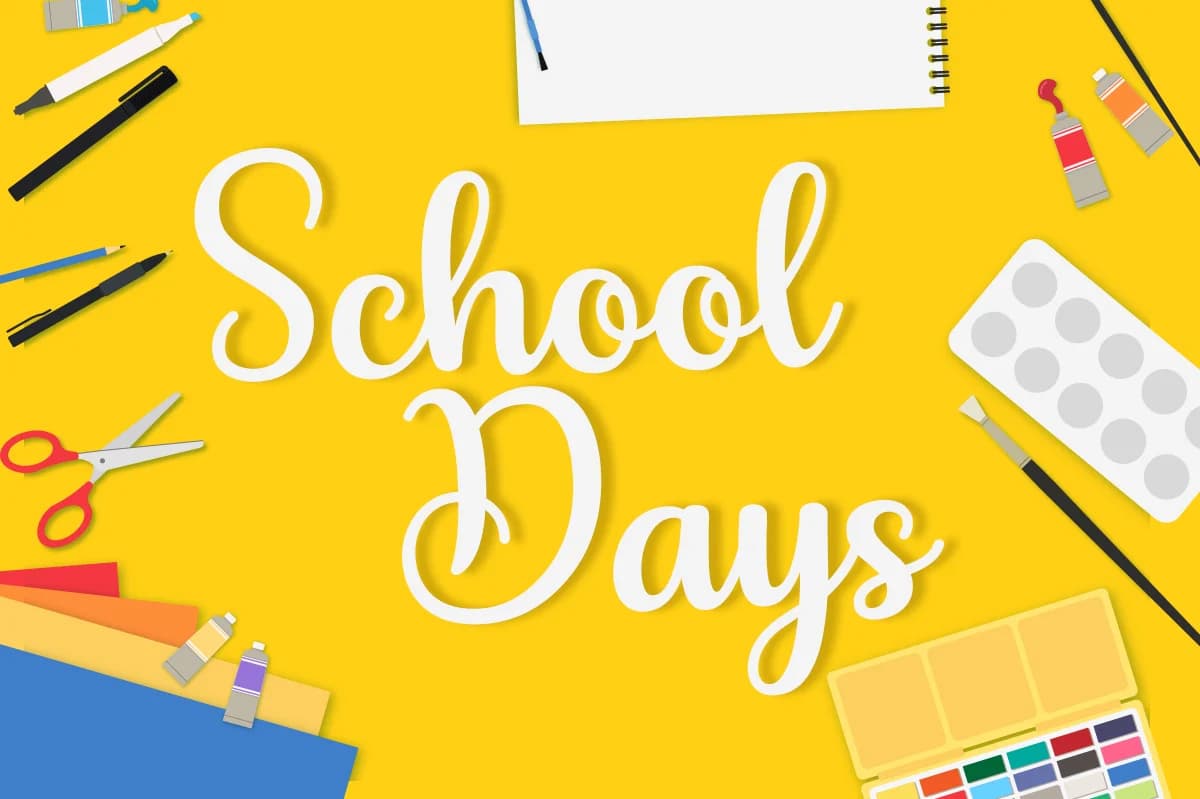
School Days Font by Silhouette America, Inc. is a warm cursive script that captures the earnest charm of vintage penmanship. With its approachable, rounded letterforms, this typeface draws inspiration from early educational documents and handwritten correspondence, making it resonate with anyone seeking genuine warmth in their typographic choices. The script conveys the unguarded quality of words written by hand, an increasingly rare quality in contemporary design.
The font's character shines across multiple applications where authenticity matters more than polish. Personalized stationery suites benefit from its inherent friendliness, while memory journals and scrapbooking layouts gain dimension from its script quality. Vintage-style greeting cards become more touching when set in this typeface, and classroom bulletin boards or children's illustrated materials acquire genuine personality rather than artificial charm. Designers working on back-to-school promotions, gift tag collections, or nostalgic branding projects will find that this script delivers the emotional weight of handwritten communication. The font's unpretentious personality makes it valuable for crafters and educators who understand that meaningful design doesn't depend on trends or heavy visual complexity, but rather on typeface choices that feel authentic to the audience.
School Days Font is a script font that shines as a display or heading face. Pair it with a clean sans-serif or serif font for body text β the contrast creates a clear hierarchy while the two styles stay balanced and easy to read.